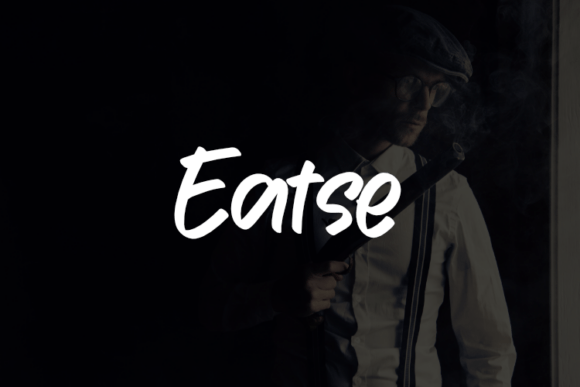
Eatse Font: The Ultimate Typographic Experience
Welcome to the world of typography, where creativity meets utility. In this realm, a new star has emerged: Eatse – an OTF font that effortlessly molds itself to match your design aspirations. Whether you’re a seasoned designer or a creative enthusiast, Eatse is the perfect companion for your typographic journey. In this article, we’ll explore the features, benefits, and applications of Eatse, and why it’s becoming the go-to font for designers worldwide.
The Genesis of Eatse
Eatse is more than just a font; it’s an ingrained expression of style and functionality. Designed with the aim of infusing ease into creation, Eatse boasts a unique blend of aesthetic appeal and practicality. Its creators sought to craft a font that would not only look great but also provide a seamless experience across various design platforms and software.
Key Features of Eatse
- Versatility: Eatse is perfect for a wide range of applications, including clothing, t-shirt designs, and other products. Its adaptable nature makes it an excellent choice for designers who work on diverse projects.
- OTF Format: As an OpenType font (OTF), Eatse offers advanced typographic features, including ligatures, swashes, and stylistic alternates. This format ensures that your designs look professional and polished.
- Ease of Use: Eatse is designed to be user-friendly, making it easy for designers to navigate and apply its various features. This ease of use saves time and allows for a more efficient design process.
Applications of Eatse
Eatse’s versatility makes it an excellent choice for a wide range of design applications, including:
- T-Shirt Designs: Eatse’s bold and stylish lettering makes it perfect for creating eye-catching t-shirt designs. Its versatility ensures that it can be used for various themes and styles.
- Clothing and Apparel: Eatse is ideal for designing clothing labels, tags, and packaging. Its professional look and feel elevate your brand’s visual identity.
- Branding and Advertising: Eatse’s unique style makes it an excellent choice for branding and advertising projects. Its legibility and aesthetic appeal ensure that your message is conveyed effectively.
- Digital Media: Eatse can be used for digital media, such as social media graphics, blog posts, and website headers. Its adaptability ensures that it looks great on various devices and screen sizes.
Benefits of Using Eatse
By choosing Eatse, designers can enjoy numerous benefits, including:
- Time-Saving: Eatse’s ease of use and versatility save designers time and effort, allowing them to focus on the creative aspects of their projects.
- Consistency: Eatse ensures consistency across various design platforms and software, eliminating the need for manual adjustments and font substitutions.
- Professional Look: Eatse’s advanced typographic features and stylish lettering ensure that your designs look professional and polished, elevating your brand’s visual identity.
In conclusion, Eatse is a game-changer in the world of typography. Its unique blend of style, functionality, and versatility makes it an excellent choice for designers worldwide. Whether you’re working on clothing designs, t-shirt designs, or other products, Eatse is the perfect companion for your creative journey. With its ease of use, compatibility, and professional look, Eatse is set to become the go-to font for designers seeking a reliable and stylish typographic experience.